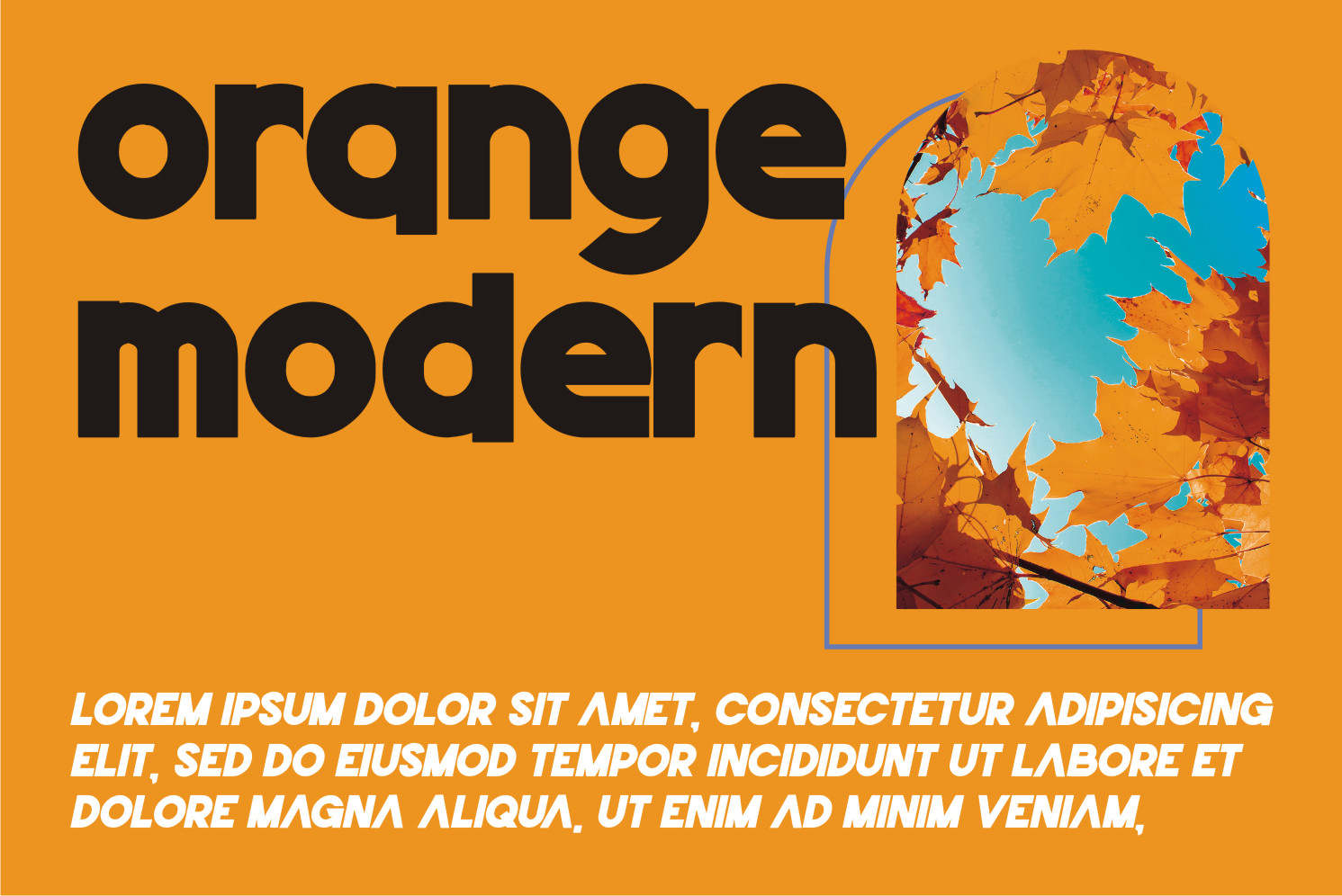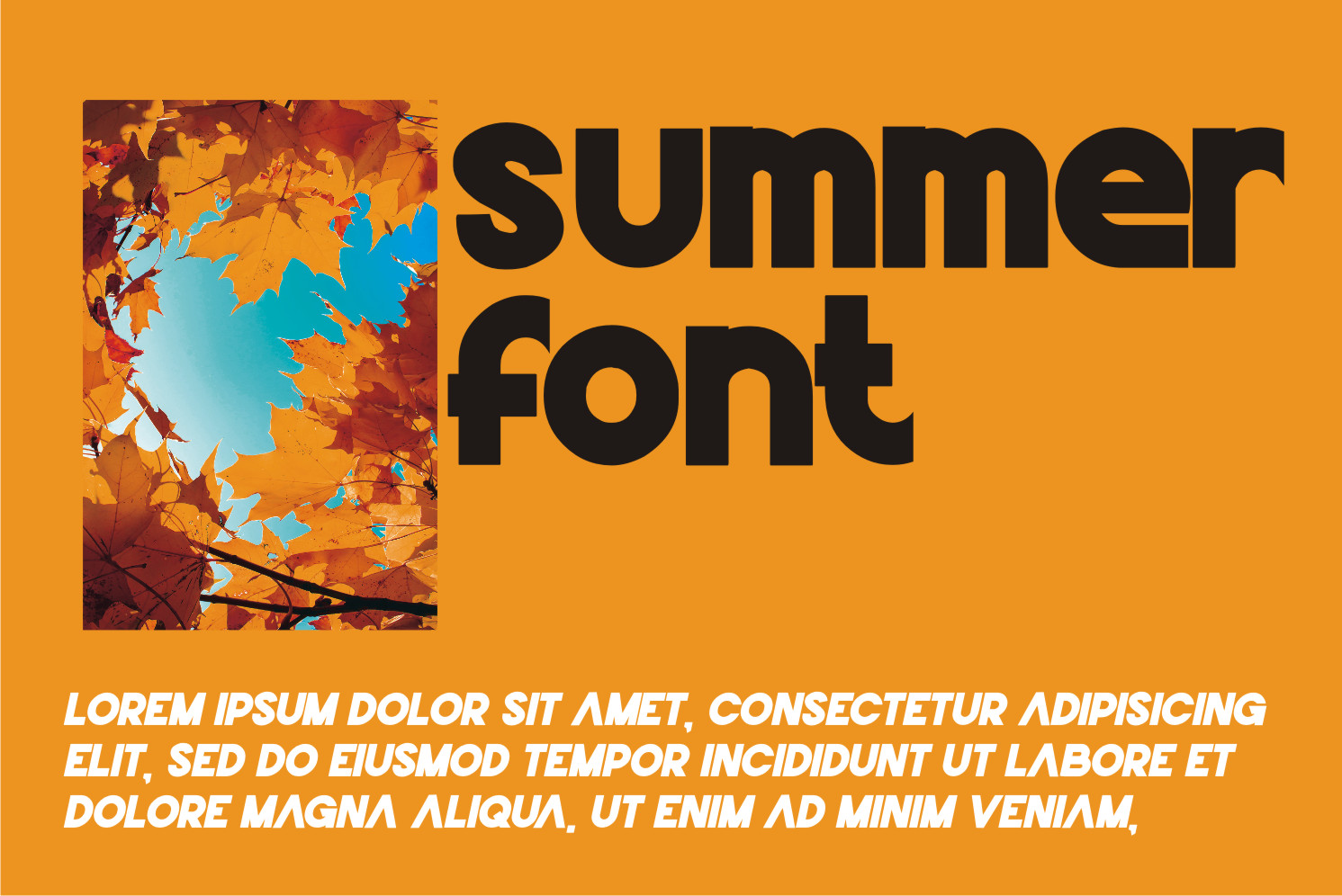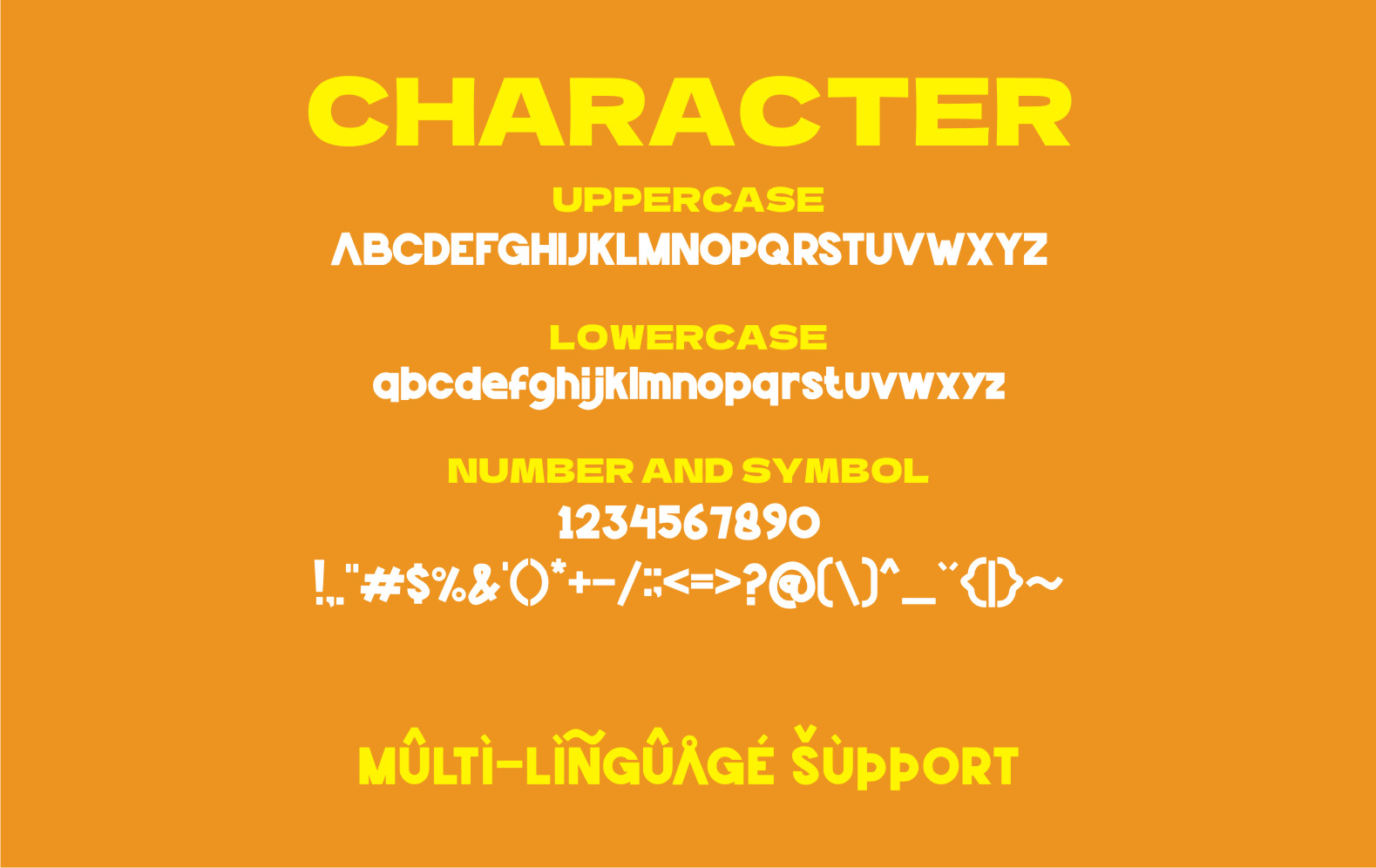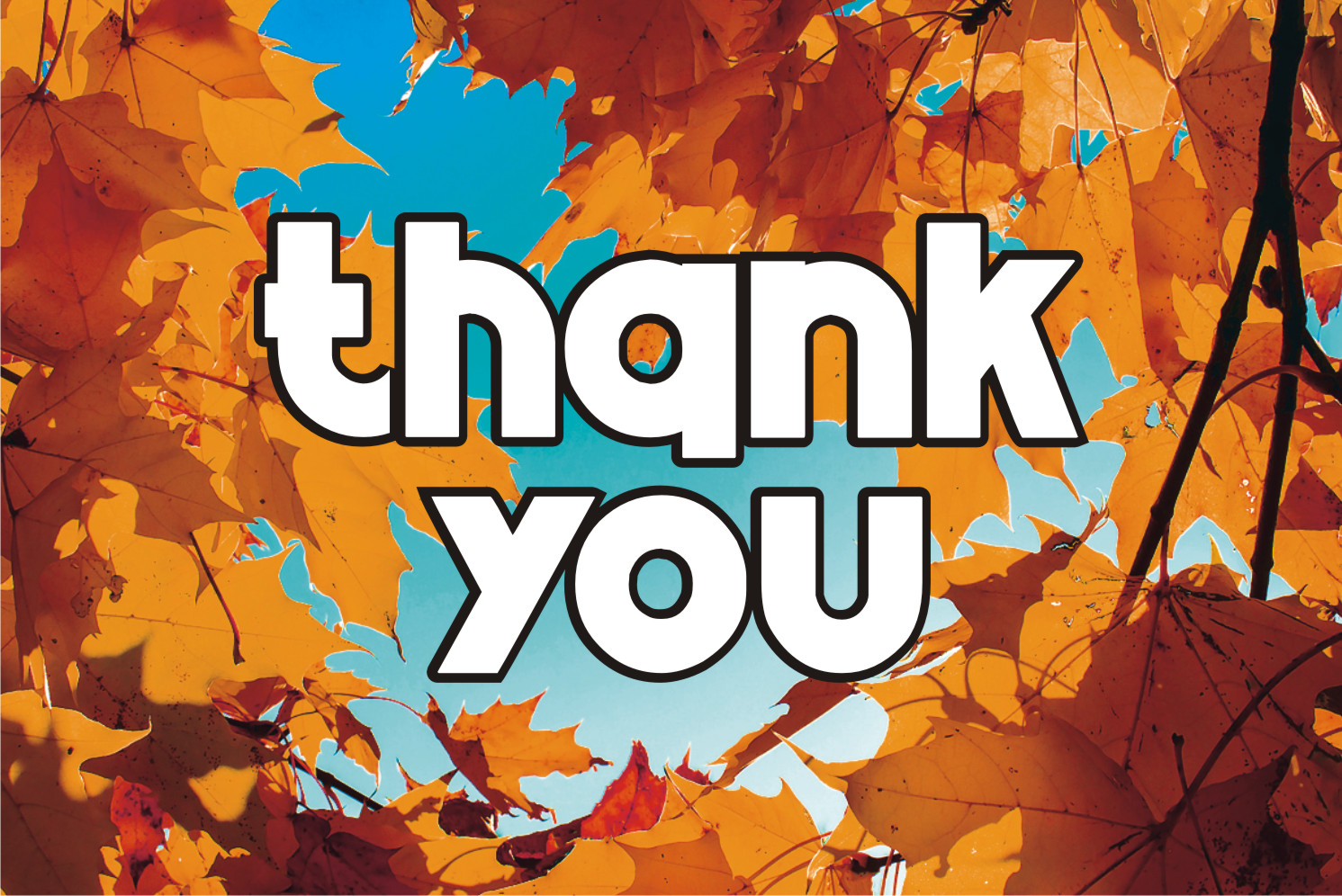
Mentora Display Font
It’s a cool, bold and thick lettered display font. This font is ideal for writing web designs, business cards, or pretty much anything else that requires a unique touch.